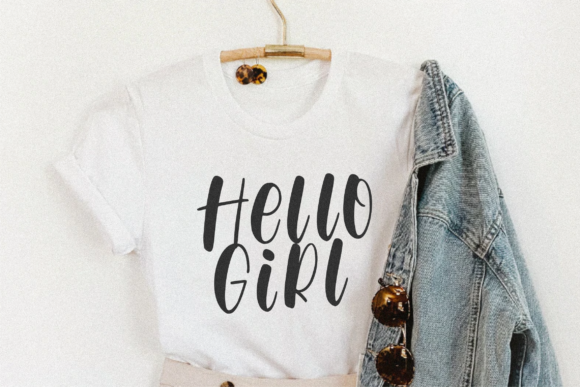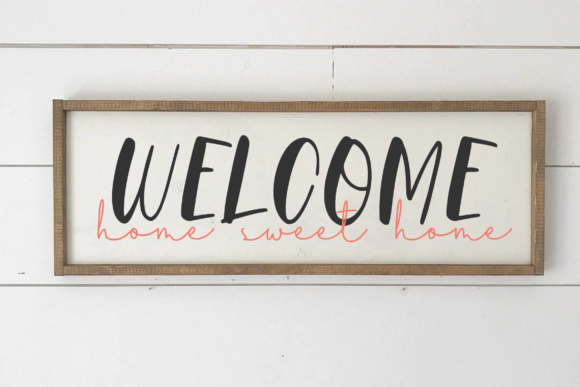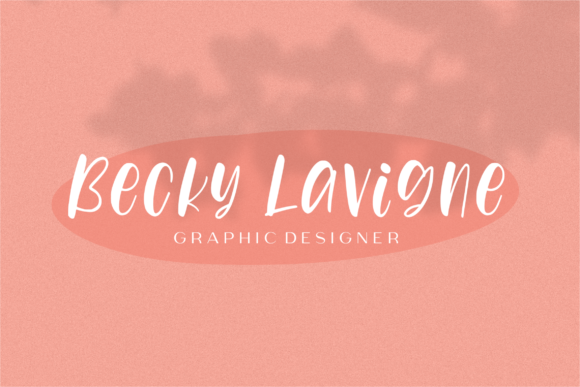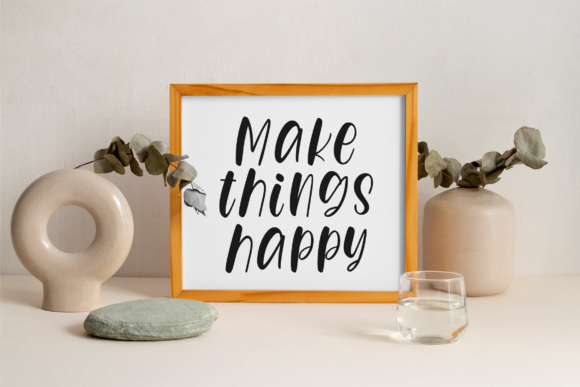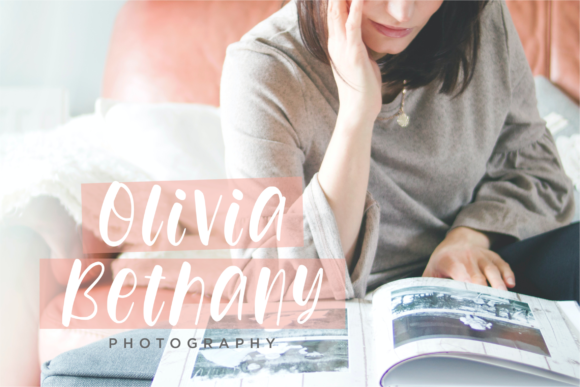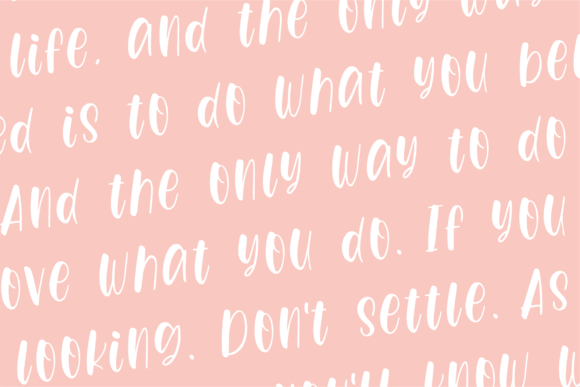
Introducing Chickyplum Font: Elevate Your Designs with Elegant Handwritten Style
In the world of design, fonts play a crucial role in conveying messages and setting the tone for a project. If you’re on the hunt for a typeface that combines elegance, sophistication, and a touch of whimsy, look no further than the Chickyplum Font. This superb handwritten font is designed to make your work stand out through its elegant and curvy lines, perfect for a wide range of applications.
What Makes Chickyplum Font Special?
Chickyplum Font is not just another typeface; it’s a design statement. Its elegant and curvy lines are meticulously crafted to add a touch of sophistication to any project. Whether you’re working on product packaging, branding projects, magazine covers, social media graphics, or wedding designs, Chickyplum Font is the perfect choice. Its versatility and charm can instantly elevate your work from ordinary to extraordinary.
One of the standout features of Chickyplum Font is its versatility. It’s a font that can seamlessly fit into various design projects, including:
- Product Packaging: Make your product stand out on the shelves with elegant packaging designs.
- Branding Projects: Establish a strong brand identity with a font that exudes elegance and sophistication.
- Magazine Covers: Create eye-catching covers that draw readers in with the font’s captivating style.
- Social Media: Enhance your social media presence with graphics that pop.
- Wedding Designs: Add a touch of romance and elegance to wedding invitations, cards, and decor.
Why Choose Chickyplum Font?
There are several reasons why designers and crafters should consider Chickyplum Font for their projects:
- Elegance: The font’s elegant and curvy lines add a touch of sophistication to any design.
- Versatility: It can be used across a wide range of projects, from digital to print.
- Uniqueness: Stand out from the crowd with a font that’s not commonly used.
- Easy to Read: Despite its elegant style, Chickyplum Font remains clear and easy to read.
Tips for Using Chickyplum Font
To get the most out of Chickyplum Font, here are some tips:
- Pair it with Solids: For maximum impact, pair Chickyplum Font with solid backgrounds or colors that complement its elegant style.
- Experiment with Sizes: Don’t be afraid to experiment with different font sizes to add emphasis and create visual hierarchy.
- Use it Sparingly: While Chickyplum Font is beautiful, using it sparingly can make it more impactful.
Chickyplum Font is a game-changer for designers and crafters looking to add a touch of elegance and sophistication to their work. Its versatile and charming style makes it perfect for a wide range of projects. By incorporating Chickyplum Font into your designs, you’re not just choosing a font; you’re making a design statement. So, go ahead and let Chickyplum Font elevate your designs to new heights.
Whether you’re a professional designer or a DIY crafter, Chickyplum Font is sure to become a favorite in your toolkit. Its ability to transform ordinary designs into extraordinary ones is unmatched. So, why settle for ordinary when you can make your work stand out with the elegance and charm of Chickyplum Font?